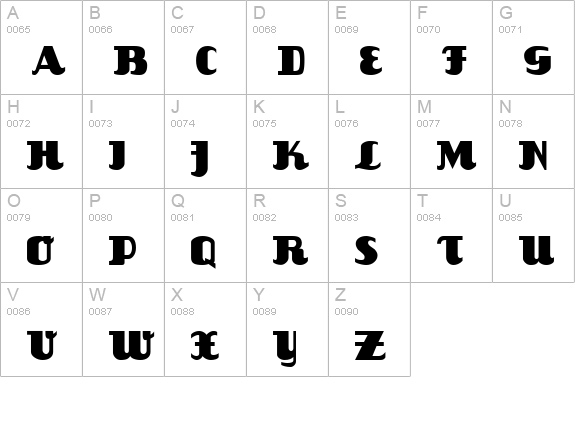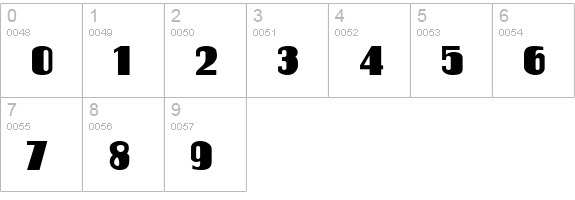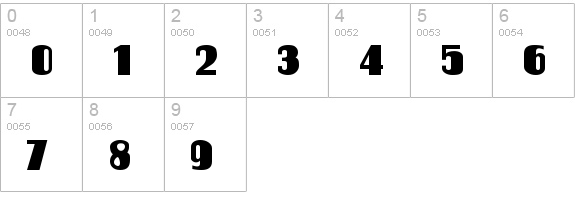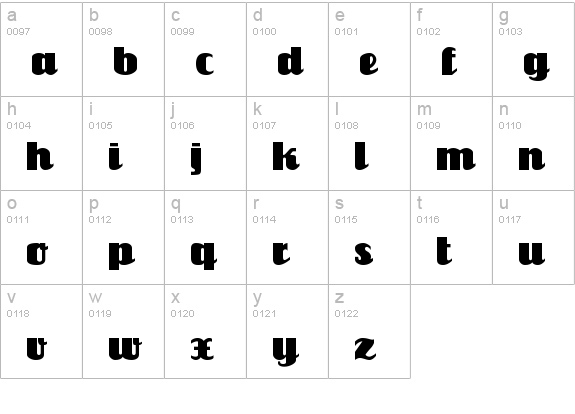
Salute Font Details
Introducing Salute font, a contemporary typeface that exudes elegance and sophistication. With its sleek and streamlined design, Salute is perfect for adding a touch of modernity to any project. Salute font features clean lines and smooth curves, giving it a polished and professional appearance. Its versatility allows it to be used in a wide range of applications, from branding and advertising to editorial design and web graphics. But what truly sets Salute font apart is its accessibility. Unlike many other premium fonts, Salute is available for free. Yes, you read that right – this stunning typeface can be downloaded and used without any cost. Thanks to FontsMarket.com, you can easily access and utilize Salute font for all your creative endeavors. Whether you're a professional designer looking to elevate your work or a hobbyist searching for the perfect font to personalize your projects, Salute font is the ideal choice. Its modern aesthetic and free availability make it a valuable asset in your font collection. So why wait? Take advantage of this incredible opportunity and download Salute font today from FontsMarket.com. Enhance your designs with this exquisite typeface and let its elegance and sophistication shine through. Get ready to make a lasting impression with Salute font – now freely available for all your creative needs.